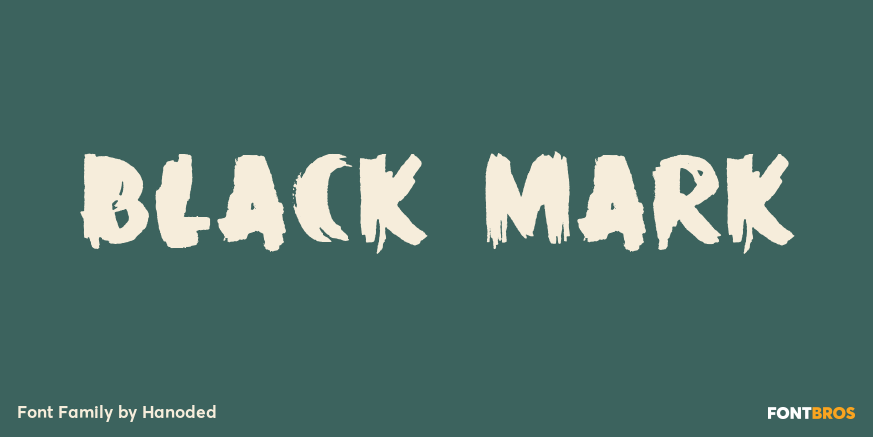
HomeFont BrosSpecial EffectBlack Mark Special EffectUrban Black Mark FacebookXPinterestWhatsApp 1 of 1 About Black Mark is a fat, heavy, grunge-to-the-max marker font. It comes with alternates (calt & salt).  DOWNLOAD ON FONT BROSThis font is sold and delivered by Font Bros. Font Canyon may earn a commission if you buy through this link. People also explored Wyvern Kallis Ottis Font Growth Period Font Small Things Font Take It Easy Font Graphie Virmana Font Black Fridays Font Molliquam Font 236 0 TagsBlack Mark Font Previous articleSticky Moula BTNNext articleFrosty LEAVE A REPLY Cancel reply Comment: Please enter your comment! Name:* Please enter your name here Email:* You have entered an incorrect email address! Please enter your email address here Website: Save my name, email, and website in this browser for the next time I comment. Personal Use Free Happy Santa Personal Use Free Read more about this font Proudly Personal Use Free Read more about this font Cloudy Night Personal Use Free Read more about this font Bahjera Personal Use Free Read more about this font BLOG To increase your work productivity, choose the most readable fonts. In today's fast-paced work environment, where digital communication and information consumption are integral to our daily routines, the choice of fonts can significantly impact... Where to Buy American Fonts Online in 2024 Fonts That Capture the Spirit of New York City Using Fonts in Digital Marketing: Tips to Strengthen Your Brand Identity